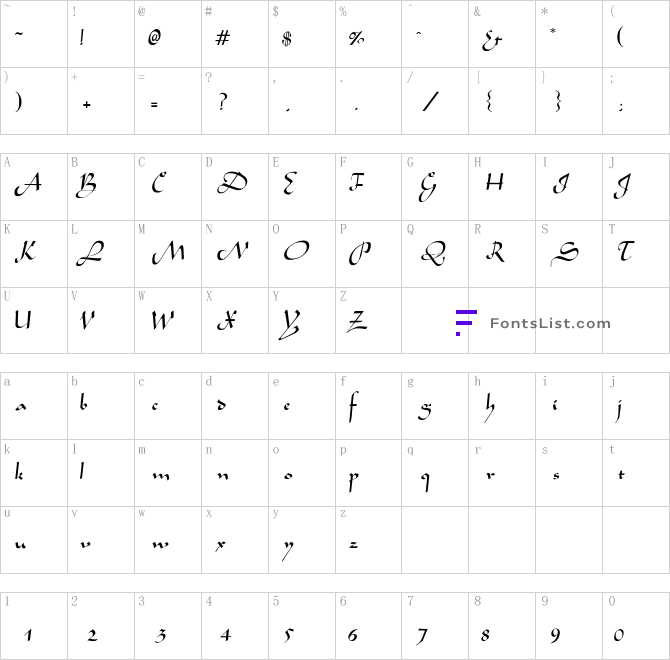
Arabian-Normal.ttf is a very beautiful artistic font, Arabian-Normal.ttf is widely used in the design and printing of various books and pictures,Arabian-Normal.ttf has a strong visual impact,Arabian-Normal.ttf is a commonly used font in newspapers, magazines and books, and is used in posters, e-commerce Poster design, store design, logo design, font design and other fields.Arabian-Normal.